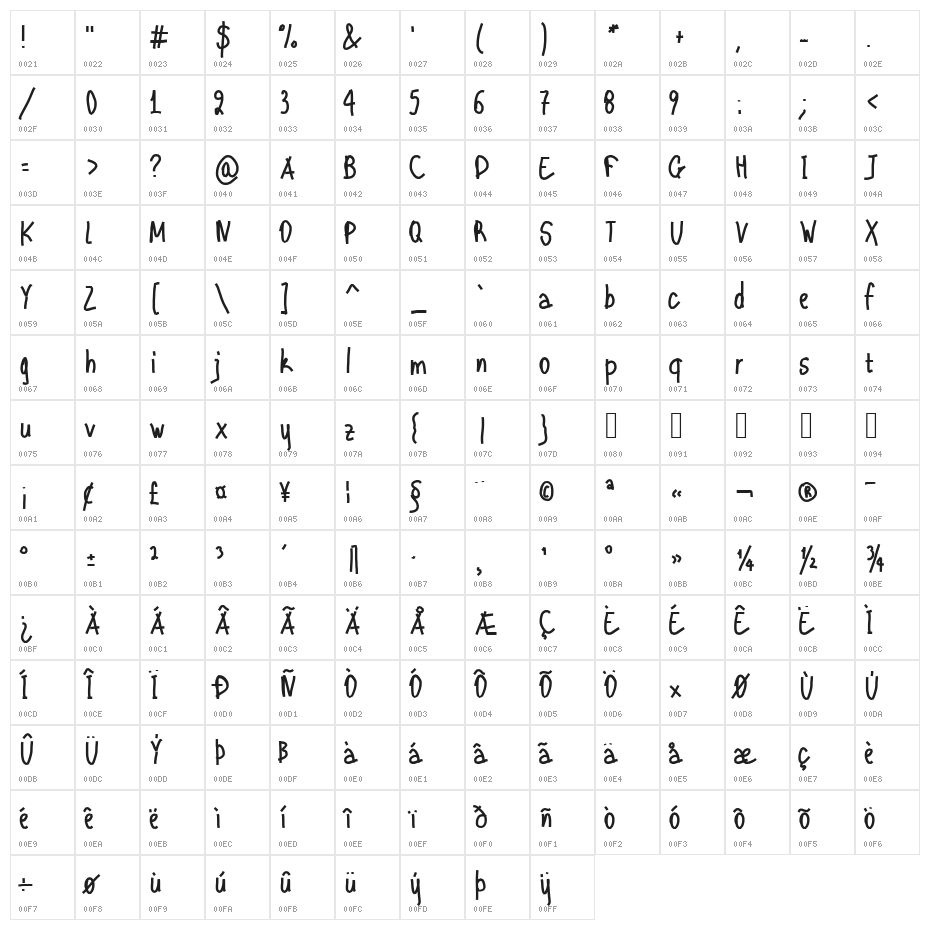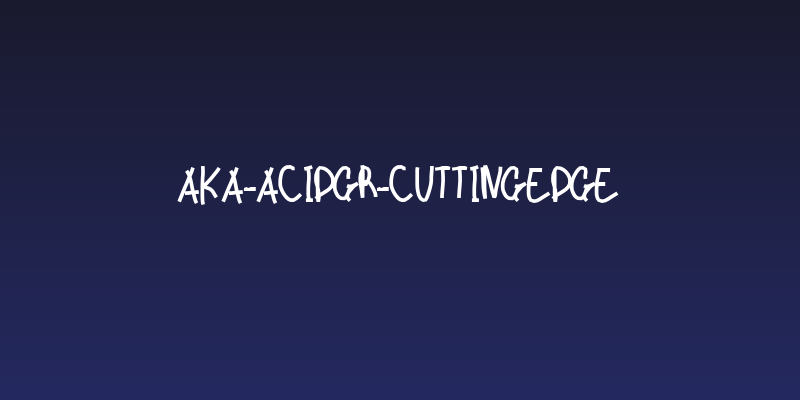
Aka-AcidGR-CuttingEdge Font
This font features a bold, hand-drawn style with a playful and slightly chaotic appearance. The letters are unevenly shaped, giving it a dynamic and energetic feel. The uppercase and lowercase letters maintain a consistent style, with exaggerated curves and angles that add to its unique character. Numbers and special characters follow the same design, ensuring a cohesive look across all elements. The font's irregularity and bold strokes make it stand out, perfect for projects that require a touch of creativity and informality.
| Proposed Projects | Ideal for posters, children's books, creative branding, and informal event invitations. |